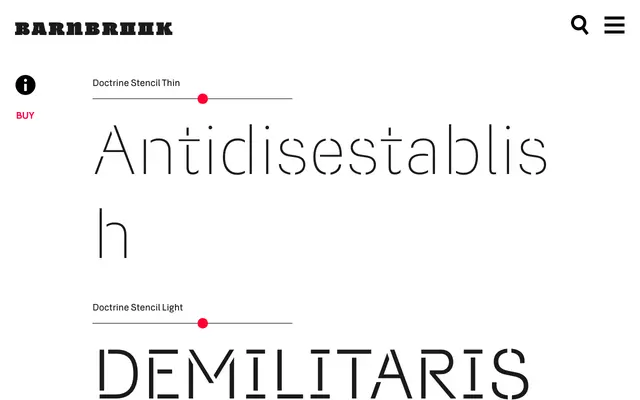
Doctrine Stencil
A stencil display face derived from North Korean airline livery, blending neo-grotesque, humanist and geometric influences with a playful approach to the stencil form.
Developed from the livery of North Korea's national airline, Doctrine Stencil sits alongside the text typeface Doctrine as its more expressive, headline-oriented counterpart. It draws on neo-grotesque, humanist and geometric letterform traditions while adapting them to a stencil model, balancing muscular presence with contemporary refinement. Four alternate character sets, a range of ligatures and multiple figure styles give it considerable typographic flexibility for a display face.
Classified as display due to its stencil construction and headline-focused design. Blends neo-grotesque, humanist and geometric influences with a stencil treatment, making it unsuitable for continuous text.